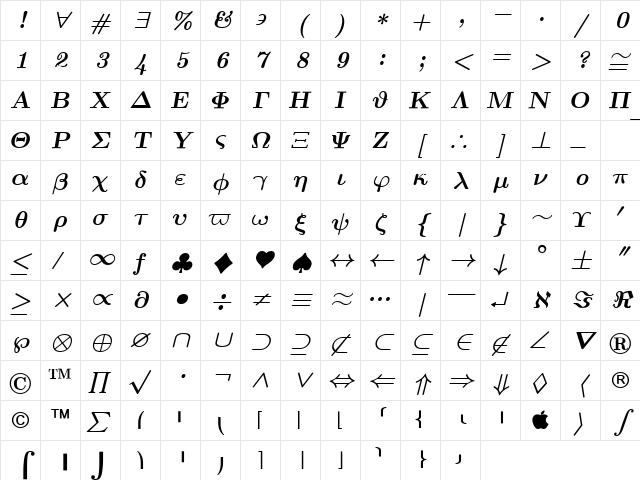
Euclid Symbol Bold Italic
Foundry: Design Science, Inc
Designer: Donald Knuth, Richard Kinch, Paul Topping, Jim King
Euclid Symbol Family
Design Context for Euclid Symbol
Euclid Symbol is a composed and adaptable typeface that performs quietly and consistently across a wide range of design contexts. The slanted form adds forward momentum and visual energy. Its bold stroke weight gives it real presence on the page.
Pro Tip: Use Euclid Symbol for emphasis, pull quotes, and subheadings where its slanted energy can add rhythm to the layout.